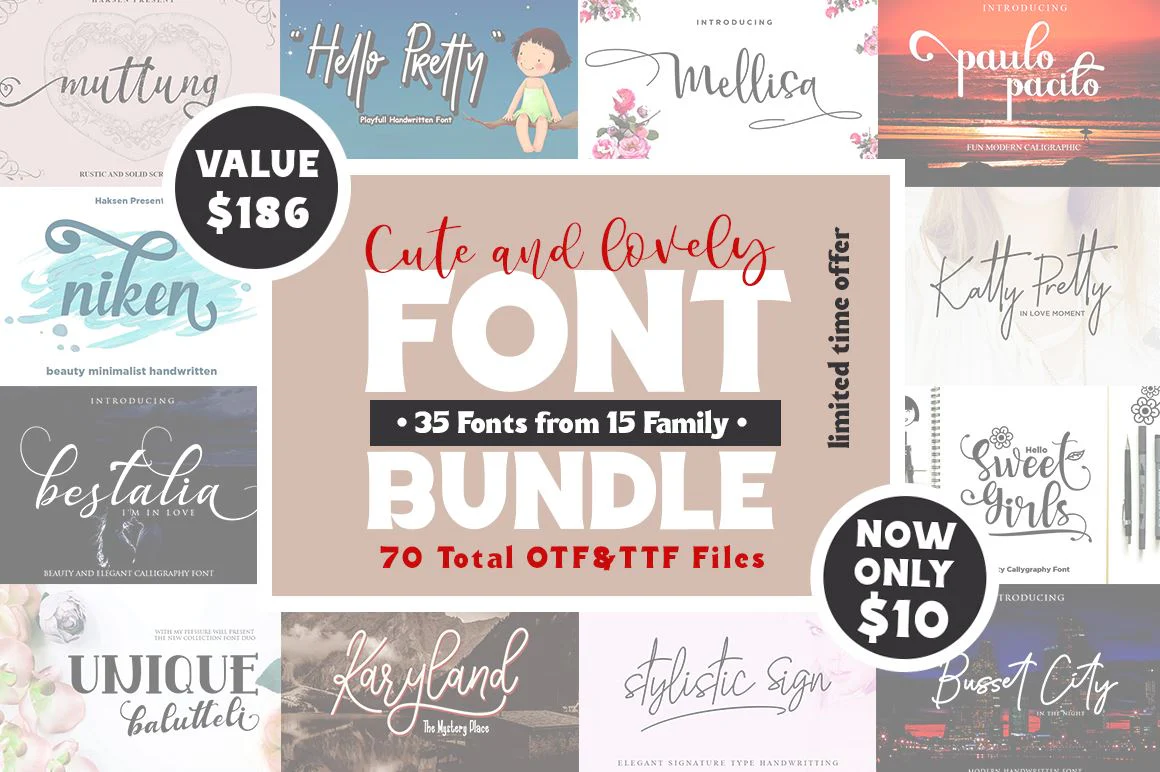
15 Family Fonts Contain 35 Fonts in Cute and Lovely Font Bundle
Comes with 35 fonts from 15 typeface, contain with many various beauty handwritten script, display comic and more.
This fonts is ideal for branding and decorate your any project. This fonts are perfect for wedding invitation or your blog. Also with their help, you can create a logo or beautiful frame for your home.